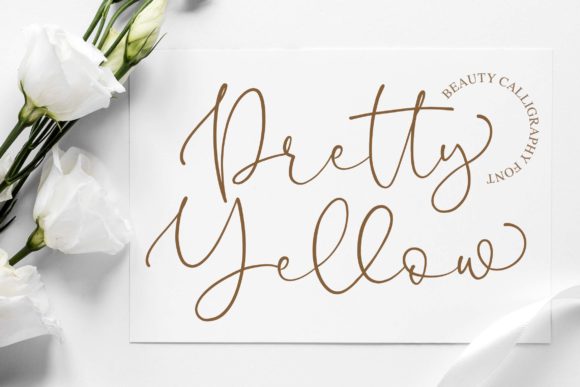
Introducing the enchanting Pretty Yellow font, a masterpiece crafted by Blankids Studio, designed to elevate your creative endeavors to new heights. This exquisite script font exudes timeless elegance and a touch of whimsy, making it the perfect choice for discerning designers seeking to evoke heartfelt emotions through their creations. Immerse yourself in a world of boundless possibilities as you explore the multifaceted beauty of Pretty Yellow, a font that seamlessly adapts to a myriad of projects, from heartfelt wedding invitations to captivating social media posts.
With its captivating baseline variations, graceful lines, and a treasure trove of stunning alternates and glyphs, Pretty Yellow empowers you to craft designs that resonate deeply with your audience. Imagine the joy of creating breathtaking wedding invitations that capture the essence of your special day, adorned with the delicate charm of Pretty Yellow. Its versatility extends far beyond the realm of matrimony, allowing you to effortlessly design enchanting stationary art that speaks volumes without uttering a word.
Unleash your creativity and embrace the transformative power of Pretty Yellow, a font that empowers you to craft designs that captivate the senses and leave a lasting impression. Its timeless appeal and undeniable charm make it the perfect choice for designers seeking to elevate their projects with a touch of sophistication and grace. Experience the magic of Pretty Yellow today and unlock a world of creative possibilities that will enchant your audience and leave them yearning for more.